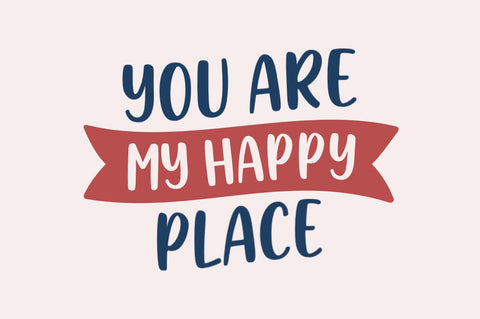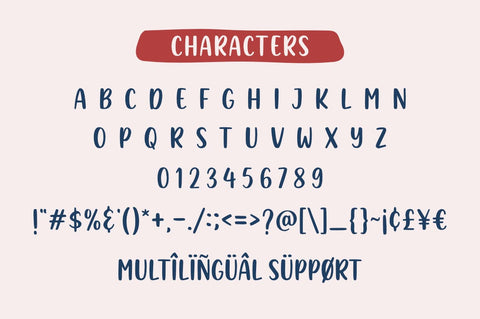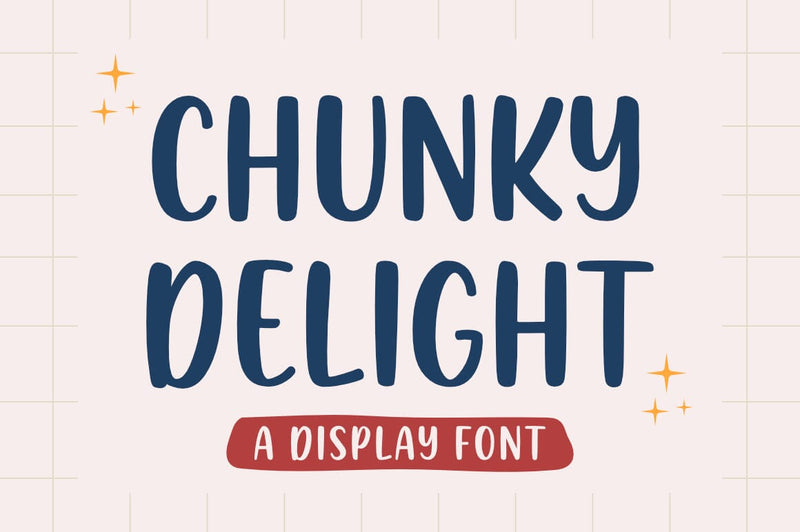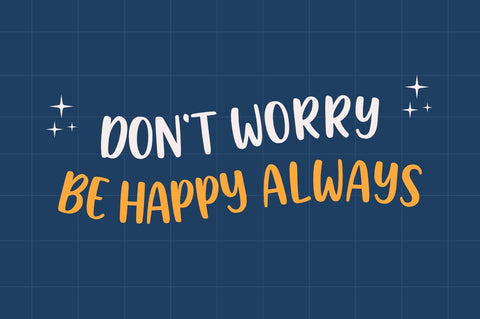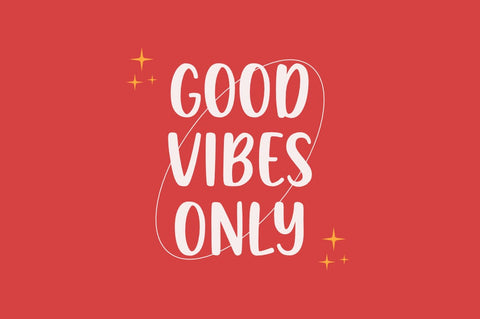
Chunky Delight Handwritten Font
Chunky Delight is a fun and handwritten all caps font with rounded strokes, this font brings a touch of fun to any project. It's perfect for logos, crafting, posters, branding, stickers, sublimation, etc.
Chunky Delight Features:
– All caps letters
– Numbers and symbols
– Multilingual characters